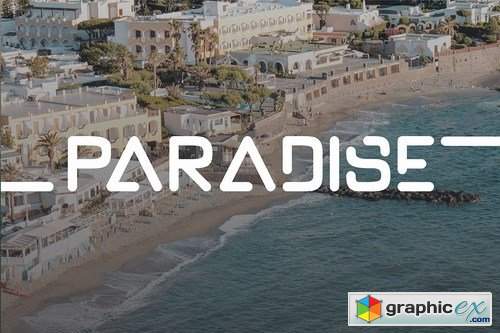
Amerald Modern Sans
Amerald fonts includes uppercase letters, numerals, a large range of punctuation. sans serif font with modern style. Created for poster, web design, branding, illustrations, badges and some other works.